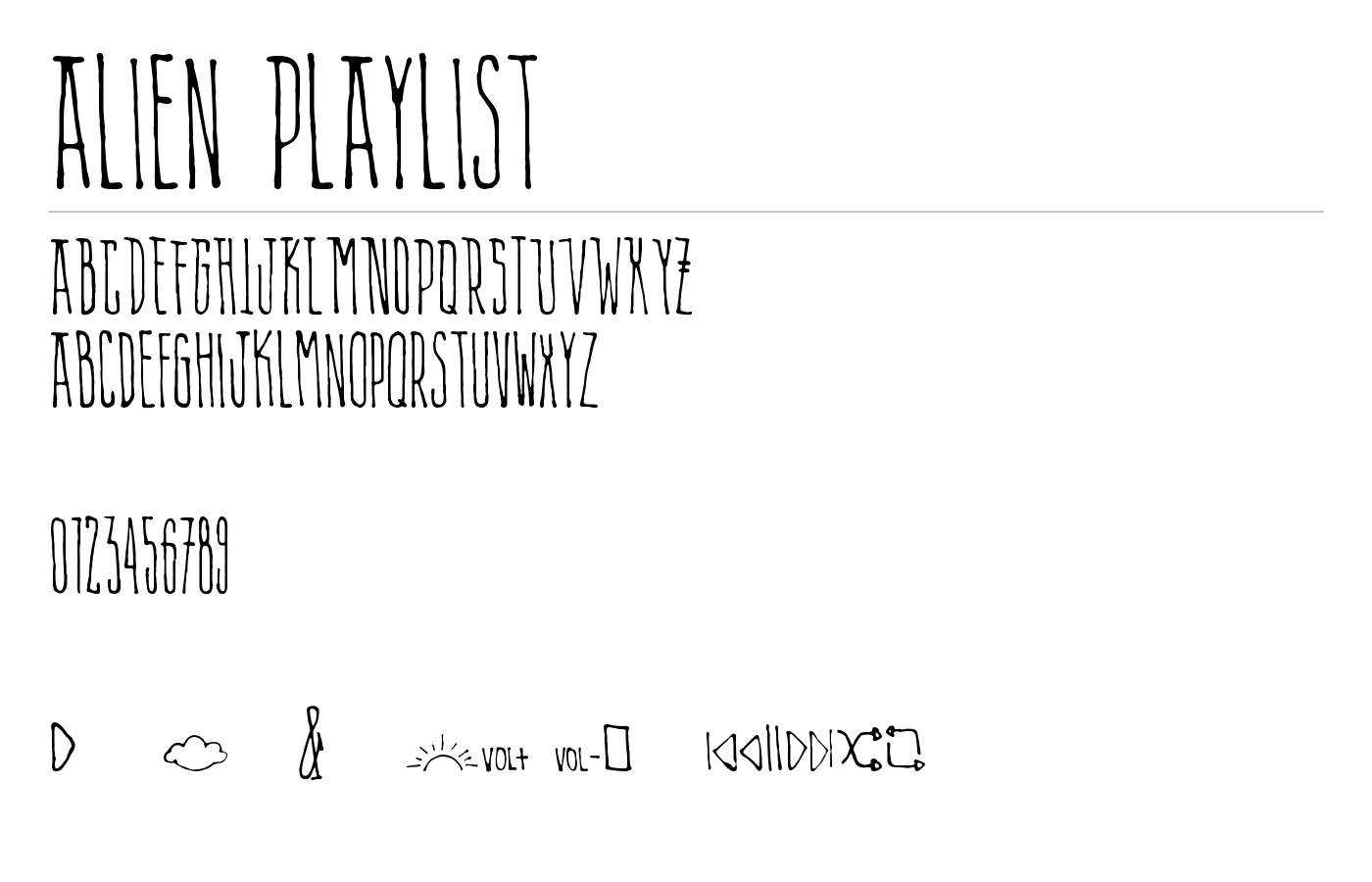
Alien Playlist is a narrow, hand-drawn sans serif font with a quirky, informal charm. Its tall, slightly irregular letterforms and uneven strokes give it a playful, otherworldly vibe that works well for creative, fun projects like posters, logos, and editorial headings where a casual and unique personality is desired. This font’s distinctive style makes it perfect for designs that want to stand out with a touch of whimsy and originality.
Alien Playlist Font
About Alien Playlist Font